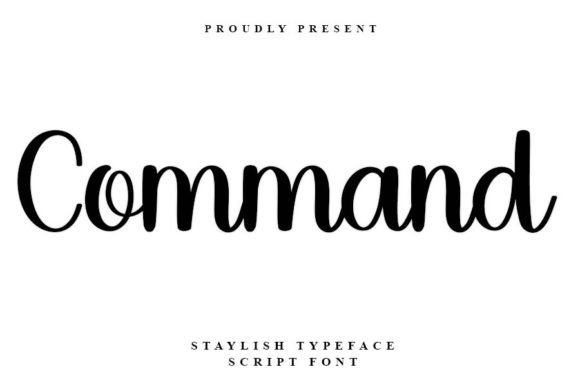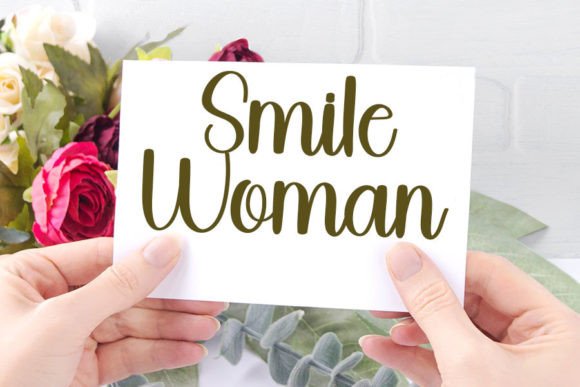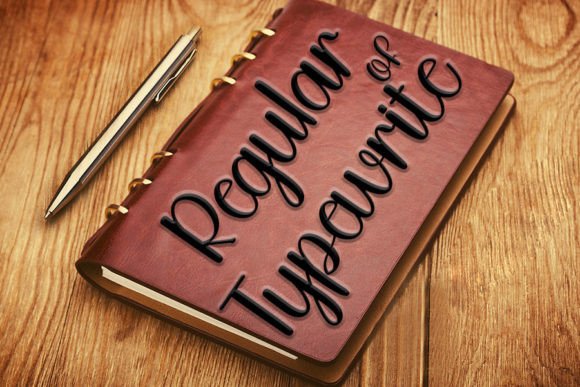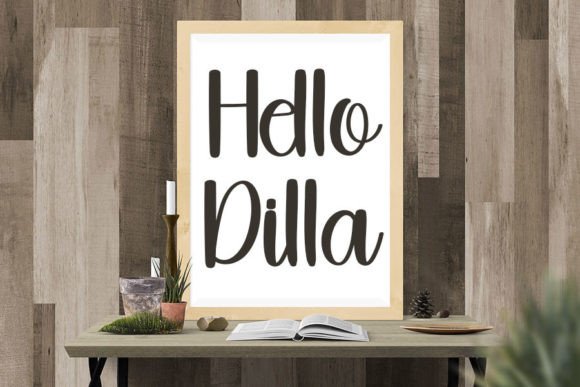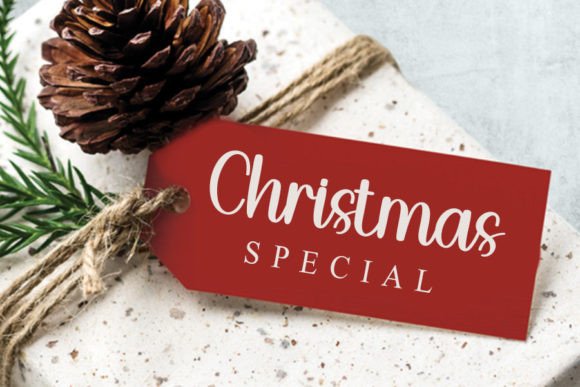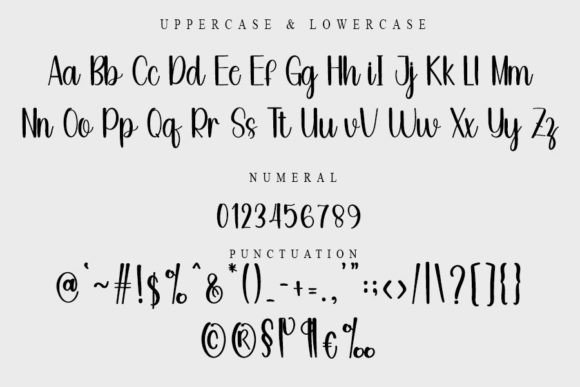
Command Font
About Command Font
The Command Font Download is a stylish handwritten typeface that combines contemporary elegance with classic inspiration. Its impeccable form and flowing strokes make it a versatile font designed to enhance the beauty of any creative project. Whether you’re designing branding materials, wedding invitations, or digital graphics, this font delivers sophistication with a modern handwritten feel.
When you choose the Command Font Download, you bring together balance, style, and timeless charm. Inspired by traditional calligraphy yet adapted for today’s design needs, this font feels both professional and personal. Its balanced curves and varied forms ensure legibility while adding an artistic flair to your work.
Features of Command Font
• Elegant handwritten script with a calligraphy influence
• Uppercase, lowercase, numerals, and punctuation included
• Multilingual support for global projects
Best Uses for Command Font
The Command Font Download is suitable for a wide variety of creative applications:
• Wedding Invitations & Stationery – Add elegance and sophistication
• Branding & Logos – Create a modern yet timeless brand identity
• Social Media Graphics – Give posts a polished, handwritten look
• Product Packaging – Enhance labels, tags, and packaging designs
• Quotes & Posters – Present words with style and readability
Its versatility ensures that whether you’re creating personal or commercial designs, the results will stand out.
Why Choose Command Font?
The Command Font Download offers the perfect balance between contemporary style and calligraphic tradition. Unlike many fonts that lean heavily in one direction, this typeface blends the best of both worlds—providing a design that is modern, legible, and elegant.
Designers and crafters appreciate its versatility, making it a reliable choice for both formal and casual projects. Its flowing lines capture attention while its balanced forms maintain readability, ensuring it works beautifully across print and digital platforms.
The Command Font Download is more than a typeface—it’s a creative tool that adds style, personality, and timeless beauty to your work. Whether you are designing wedding stationery, branding projects, product packaging, or digital content, this handwritten script brings sophistication and charm to every project. Adding it to your font library means always having a versatile option that pairs elegance with practicality.